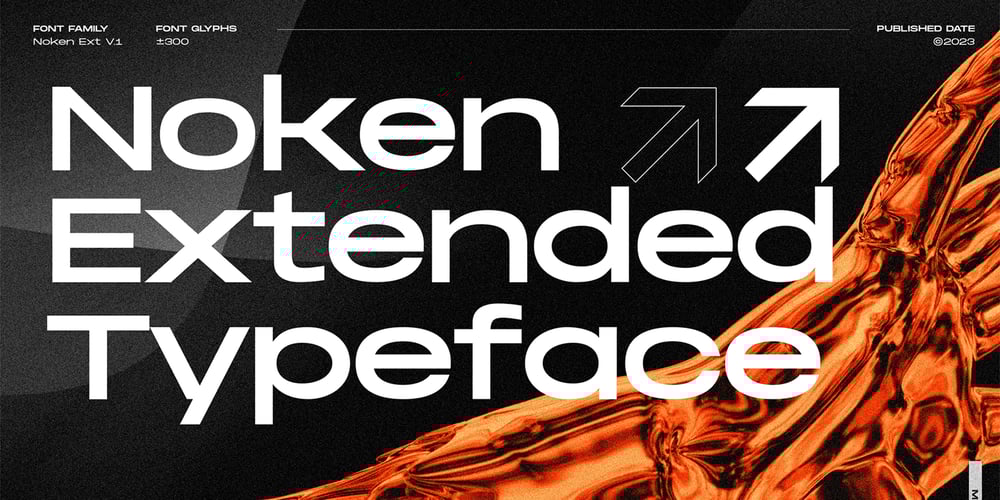
CCS Noken Font Family was designed by Kurt Harahap and published by Creative Corner Studio. CCS Noken contains 3 styles and family package options. CCS Noken is a sleek and versatile sans-serif display typeface family that comes in three weights with ligatures and alternate letters. Its extended width makes it perfect for creating attention-grabbing typography, whether you’re designing for print or digital media. CCS Noken is an excellent choice for designers looking to add sophistication and style to their designs with bold and unique typography.